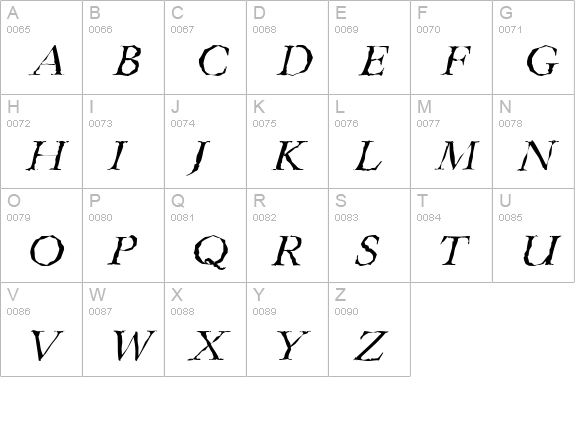
LingwoodRandom-Italic Font Details
LingwoodRandom-Italic is a distinctive, italic variant in the LingwoodRandom typeface family \xE2\x80\x94 well suited to design and typography projects.
Introducing LingwoodRandom-Italic font, a unique and expressive typeface that exudes a sense of creativity and spontaneity. With its playful curves and slanted design, this font adds a touch of whimsy to any project. LingwoodRandom-Italic is perfect for making a statement in headlines, logos, or any design that calls for a bold and dynamic font. Its italicized style gives your text a sense of movement and energy, making it stand out from the crowd. Best of all, LingwoodRandom-Italic is completely free to download at FontsMarket.com. So whether you're a designer looking to add a bit of flair to your projects or a content creator in need of a fresh font for your website, LingwoodRandom-Italic is the perfect choice. Download it today and let your creativity run wild!